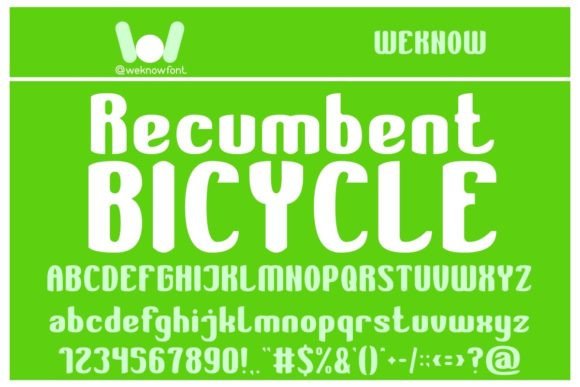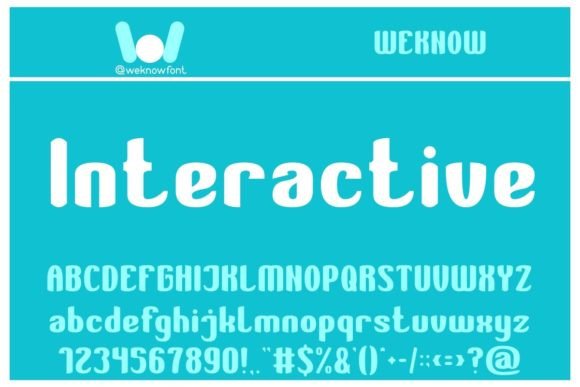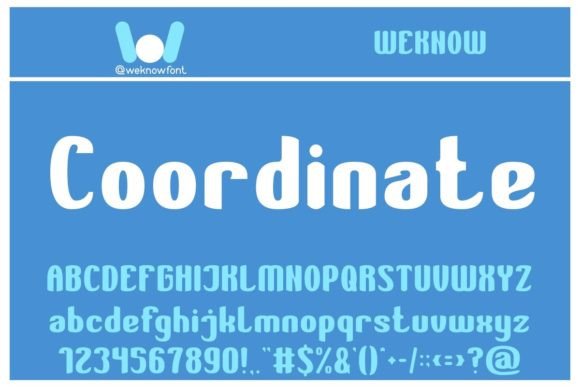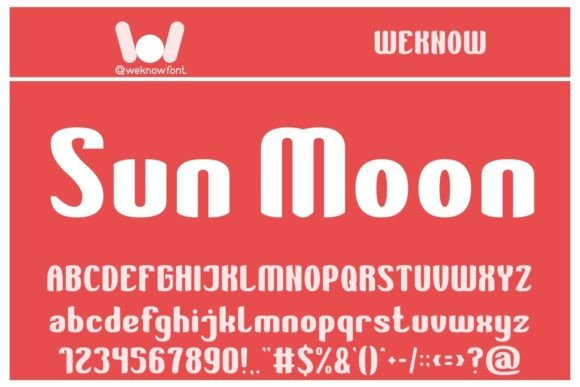
Introducing Delightful Challenge Font: Elevate Your Designs with a Touch of Elegance
In the world of design, fonts play a pivotal role in conveying messages, evoking emotions, and creating lasting impressions. For designers, crafters, and creative enthusiasts, finding the perfect font that combines style, versatility, and uniqueness can be a delightful challenge. This is where the Delightful Challenge Font comes into play, a fancy and various display font designed to elevate your projects with a touch of elegance and sophistication.
What is Delightful Challenge Font?
Delightful Challenge Font is a meticulously crafted display font, ideal for a wide range of applications including logos, logotypes, headlines, corporate identities, brand identities, apparel designs, posters, music and movie titles, game graphics, magazine and book covers, comics, cartoons, YouTube and Instagram content, websites, and any other creative design projects. Its unique and stylish characters are designed to add a distinctive flair to your work, setting it apart from the ordinary.
Key Features of Delightful Challenge Font
- Versatility: Delightful Challenge Font is not just limited to one or two design projects. Its versatility allows it to be used across various platforms and mediums, making it a valuable addition to any designer’s toolkit.
- Elegance and Sophistication: With its fancy and various display styles, this font exudes elegance and sophistication, perfect for designers looking to add a high-end feel to their creations.
- Readability: Despite its stylized nature, Delightful Challenge Font maintains a high level of readability, ensuring that your message is conveyed clearly and effectively.
- Customization: The font comes with a range of styles and alternatives, allowing for extensive customization to fit the specific needs of your project.
Applications of Delightful Challenge Font
The applications of Delightful Challenge Font are vast and varied. Here are a few ideas to get you started:
- Logo and Branding: Create a memorable logo or enhance your brand identity with a font that stands out.
- Apparel and Fashion: Add a stylish touch to your clothing and accessory designs, making them more appealing to your target audience.
- Digital Content: Elevate your YouTube videos, Instagram posts, and website content with a font that captures attention.
- Print Media: Use Delightful Challenge Font in your posters, magazines, books, and comics to give them a unique edge.
Why Choose Delightful Challenge Font?
In a sea of fonts, Delightful Challenge Font stands out for several reasons:
- Uniqueness: It offers a fresh and distinctive style that can help your designs stand out.
- Quality: Crafted with attention to detail, ensuring a high-quality finish for your projects.
Delightful Challenge Font is more than just a font; it’s a design solution that can transform your projects with its elegance, versatility, and uniqueness. Whether you’re a professional designer, a crafter, or simply someone who loves to dabble in design, this font is sure to inspire and elevate your creative endeavors. So, take on the delightful challenge and discover how this fantastic font can enhance your designs and leave a lasting impression on your audience.
Embark on your creative journey with Delightful Challenge Font today and experience the difference it can make in your designs.